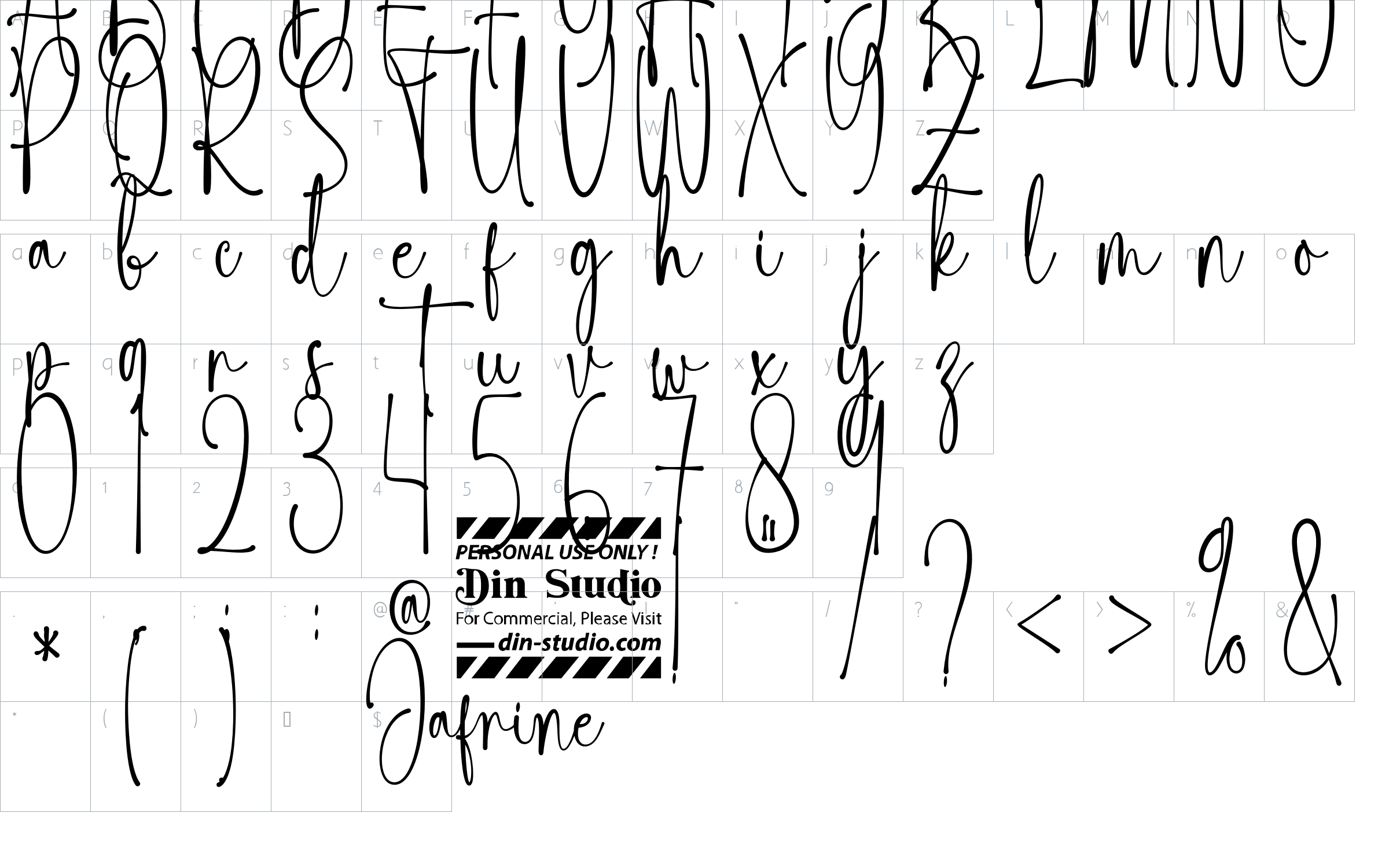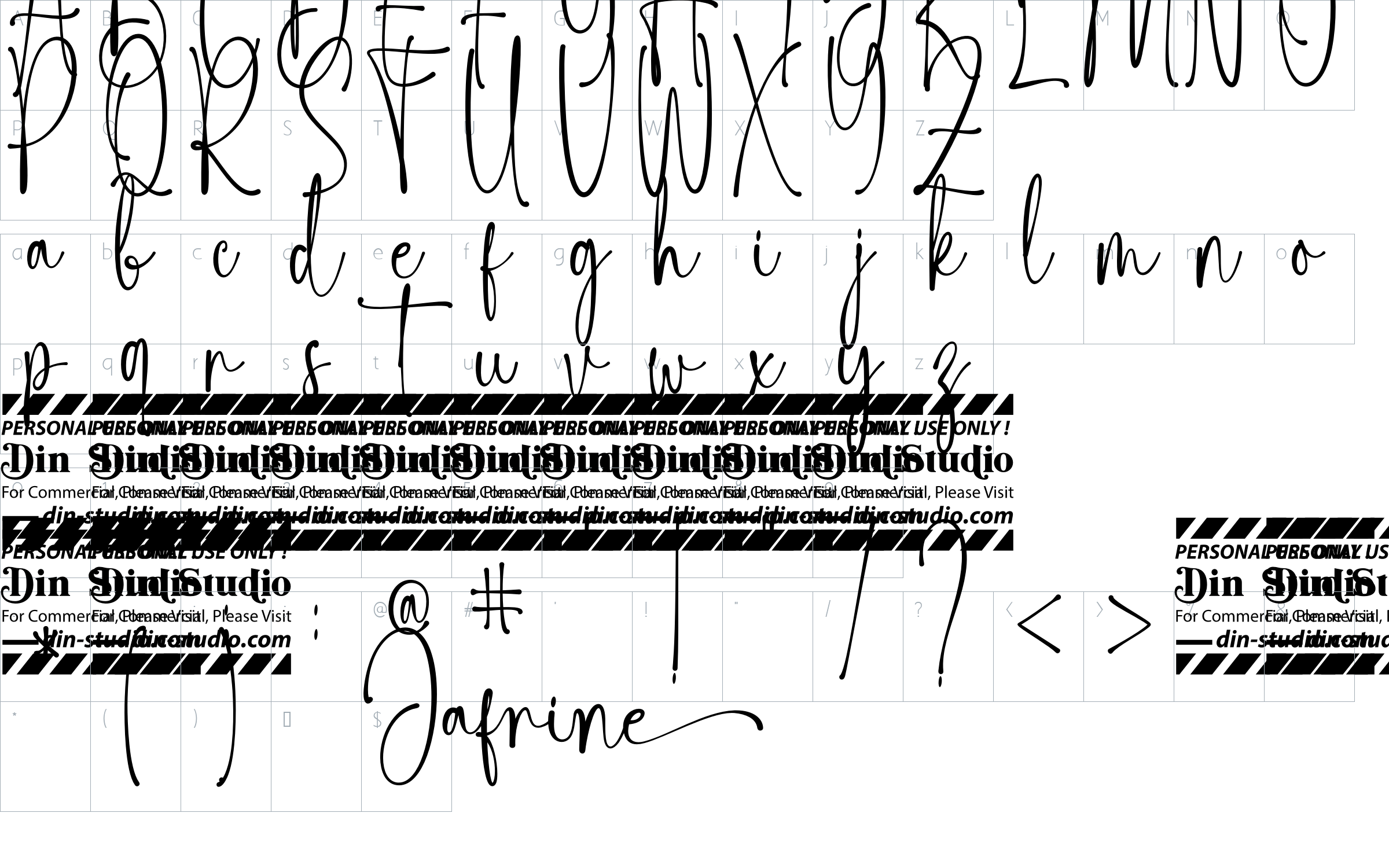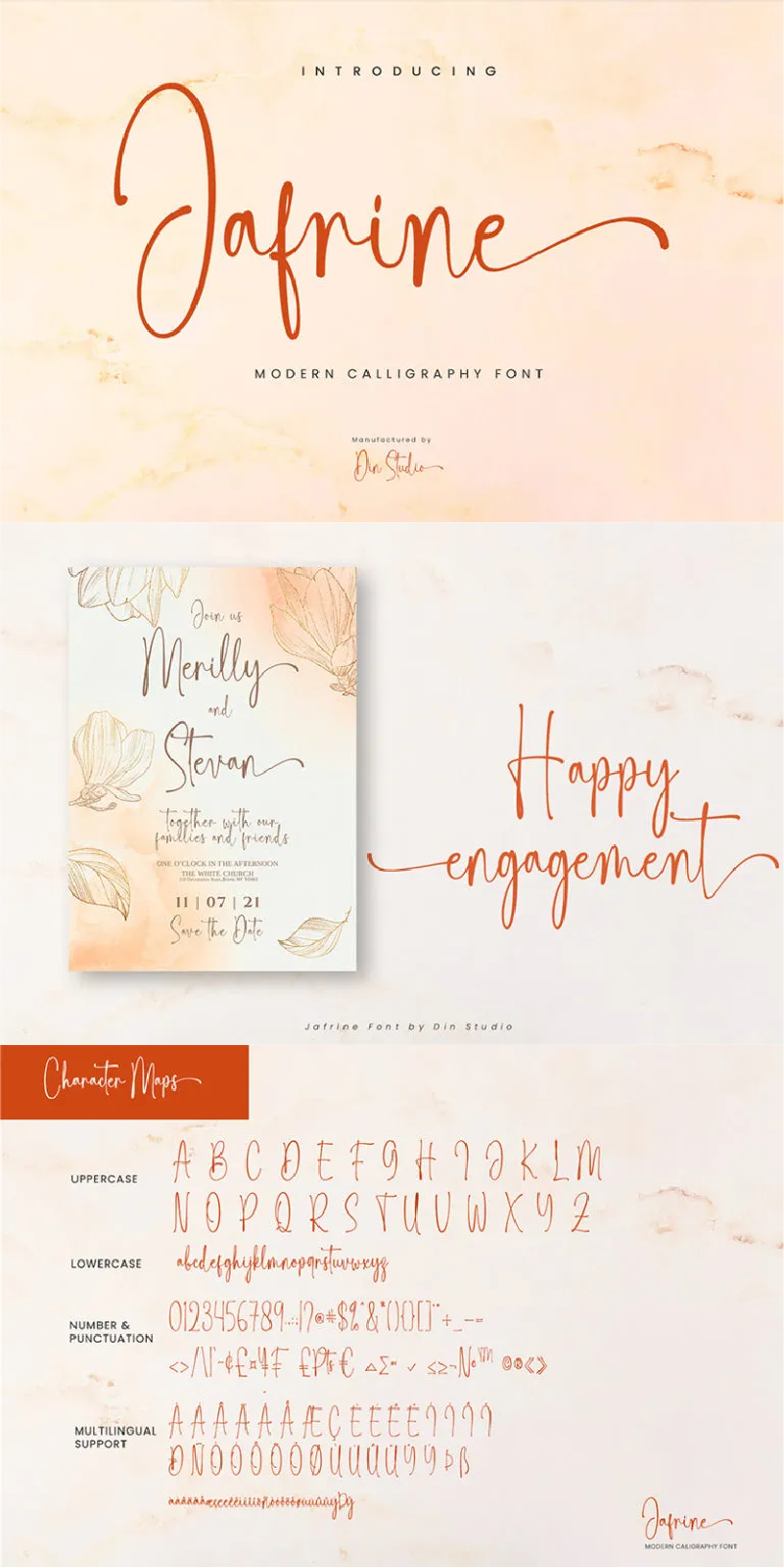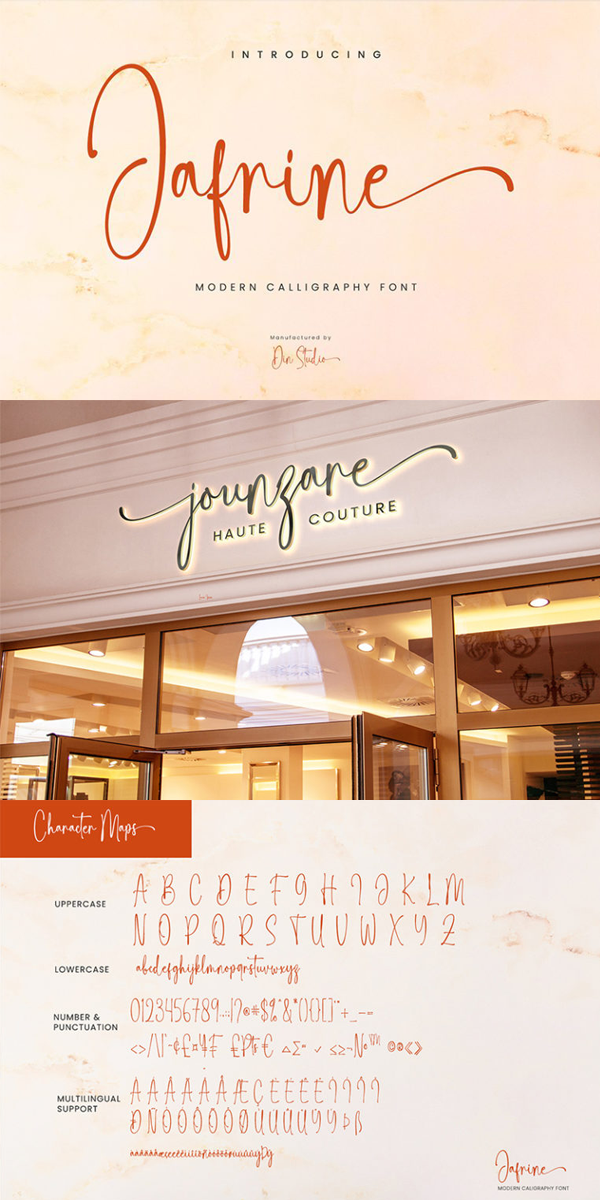
Jafrine Font
About Jafrine
Jafrine is a modern calligraphy font. It brings a beautiful and attractive typeface. The font has an authentic modern calligraphy look making it perfect for branding and digital designs. It is the best for logos, branding, wedding, quotes and more. See the previews above to get some inspiration on how you can use them. Happy Designing!
– Stylistic Set
– Beautiful Ligatures